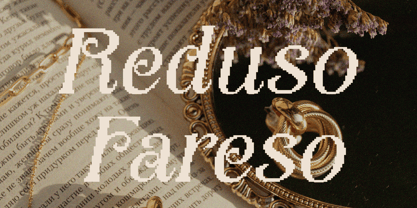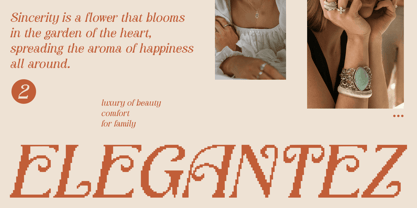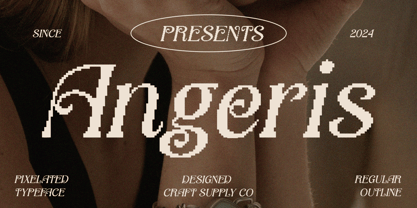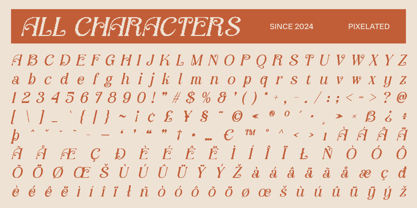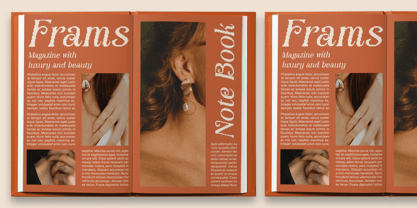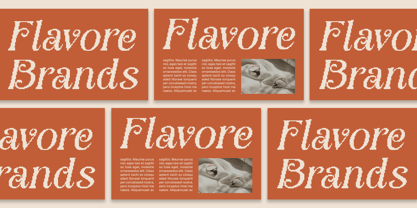
Angeris Pixel
par Craft Supply Co
La famille de polices Angeris Pixel a été conçue par Trio Nazzar Saputra, Wahyu Hadi Yuana et publiée par Craft Supply Co. Angeris Pixel contient 2 styles et options de package familial.
À propos de la famille
Angeris Pixel: Classic Beauty with Retro and Digital Fusion
Unique Blend of Elegance, Retro, and Modernity
Angeris Pixel is a serif font with Art Nouveau styling that presents classic beauty and a unique retro touch. The pixel effect adds an intriguing modern dimension, creating a distinctive blend of traditional style and technological elements.
Perfect for Unique and Innovative Designs
With its Art Nouveau styling and pixel effect, Angeris Pixel is ideal for designs seeking a unique appearance. This font ensures your projects stand out with a blend of elegance, retro charm, and innovative digital twist, making it suitable for various applications that require a distinctive and memorable aesthetic.
Ideal for Designs Combining Elegance and Retro
Angeris Pixel enhances designs that combine elegance and retro aesthetics. Its pixel effect adds a modern twist, ensuring your designs convey sophistication and innovation while maintaining a classic beauty and retro appeal.
Versatile for Various Creative Projects
Versatile and visually striking, Angeris Pixel adapts seamlessly to various creative projects. Whether used in digital or print media, this font provides a timeless yet modern appeal that enhances the overall impact of your designs.